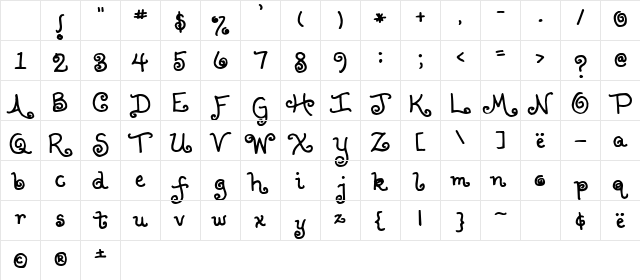
Complete KG Lollipop Regular glyph index. Displaying only characters natively supported by KG Lollipop Regular font.
KG Lollipop is a composed and adaptable typeface that performs quietly and consistently across a wide range of design contexts.